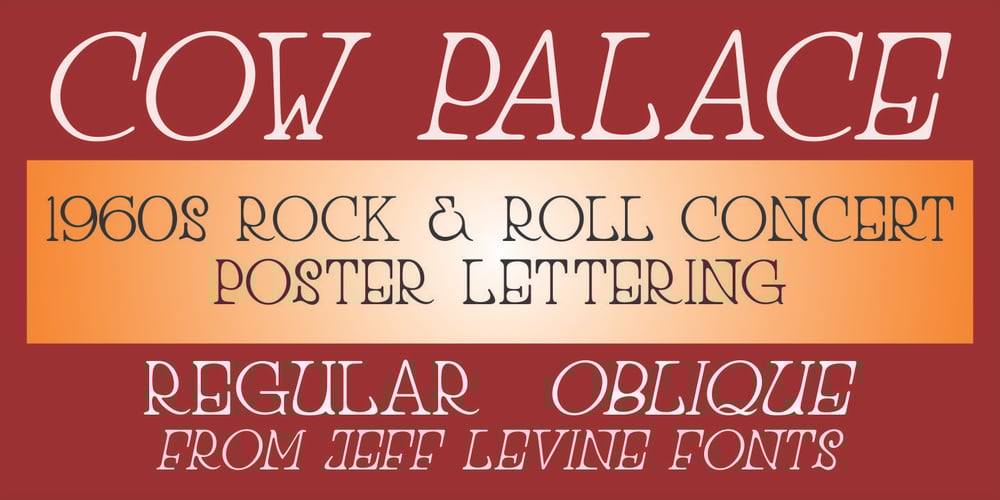
Cow Palace JNL
Cow Palace JNL font
Cow Palace JNL Font Family was designed by Jeff Levine and published by Jeff Levine. Cow Palace JNL contains 2 styles and family package options. During the 1960s Hippie movement, a large amount of the rock and roll poster art was strongly influenced by the Art Nouveau period of the early 1900s. A poster for an appearance by The Doors at San Francisco’s Cow Palace Exposition Center (presented by Fillmore East and West owner Bill Graham) featured some wonderfully eclectic Nouveau-styled serif hand lettering. Now recreated as a digital type face called Cow Palace JNL (and named for the performance venue), the font is available in both regular and oblique versions.